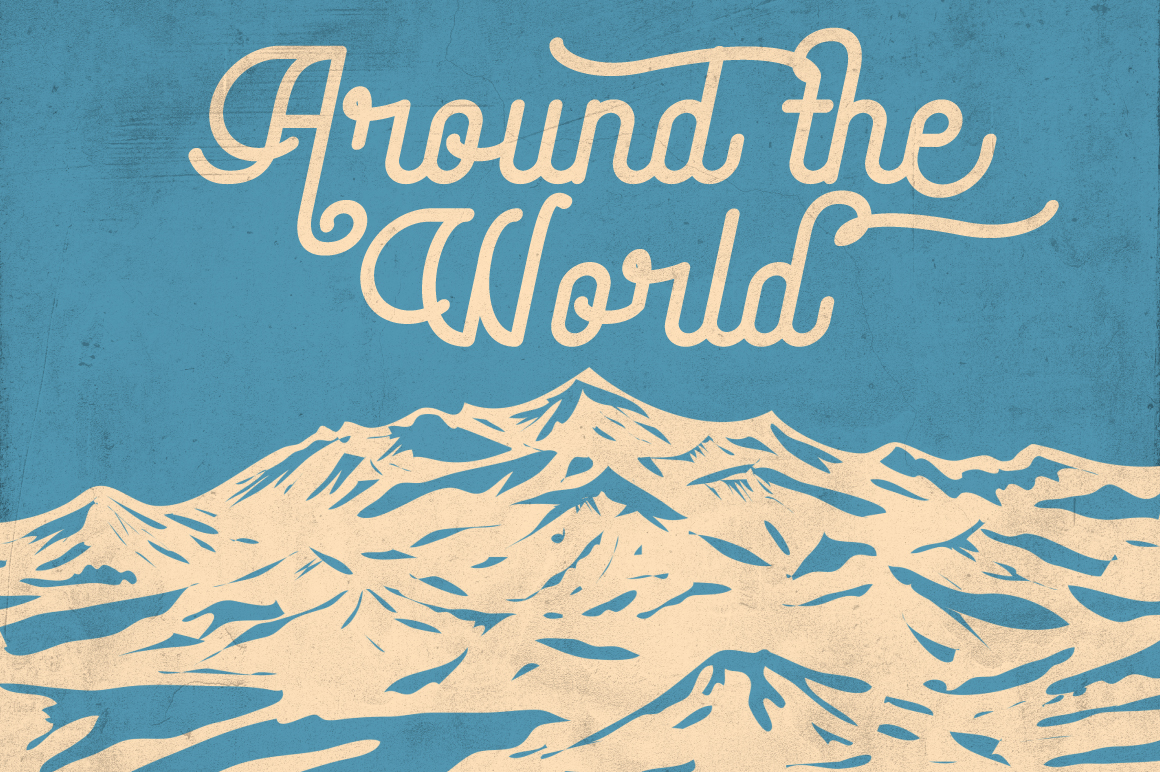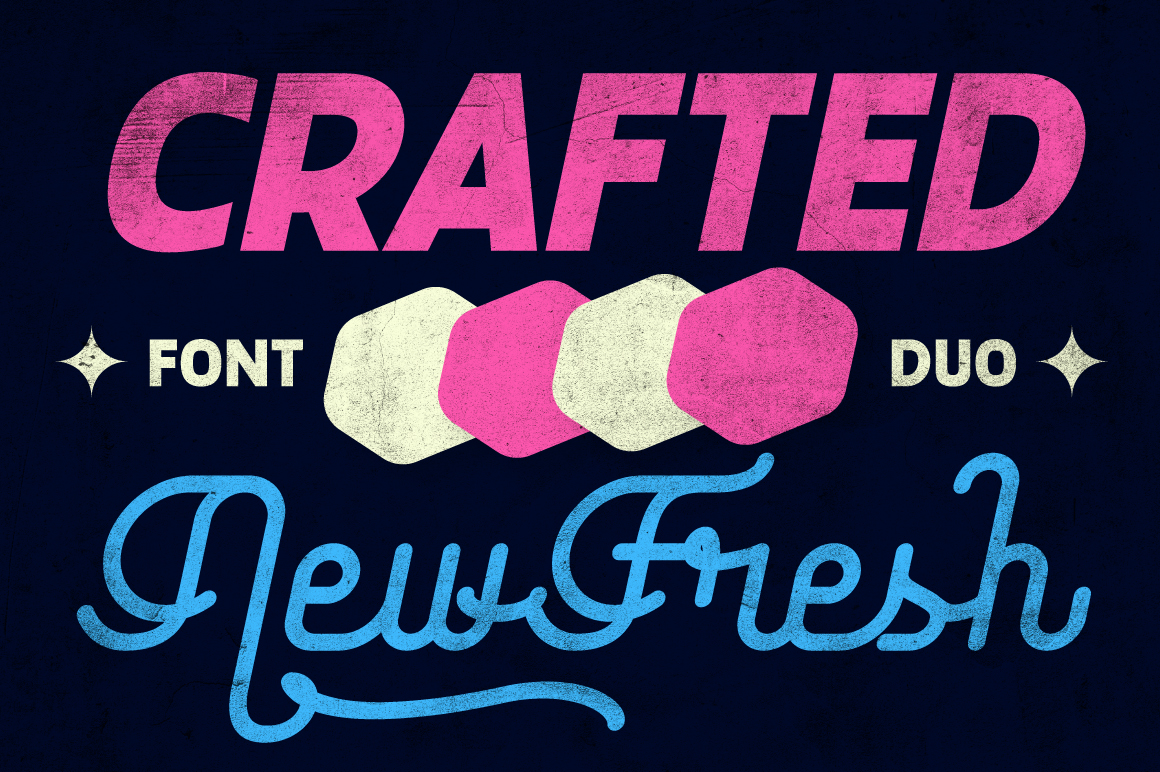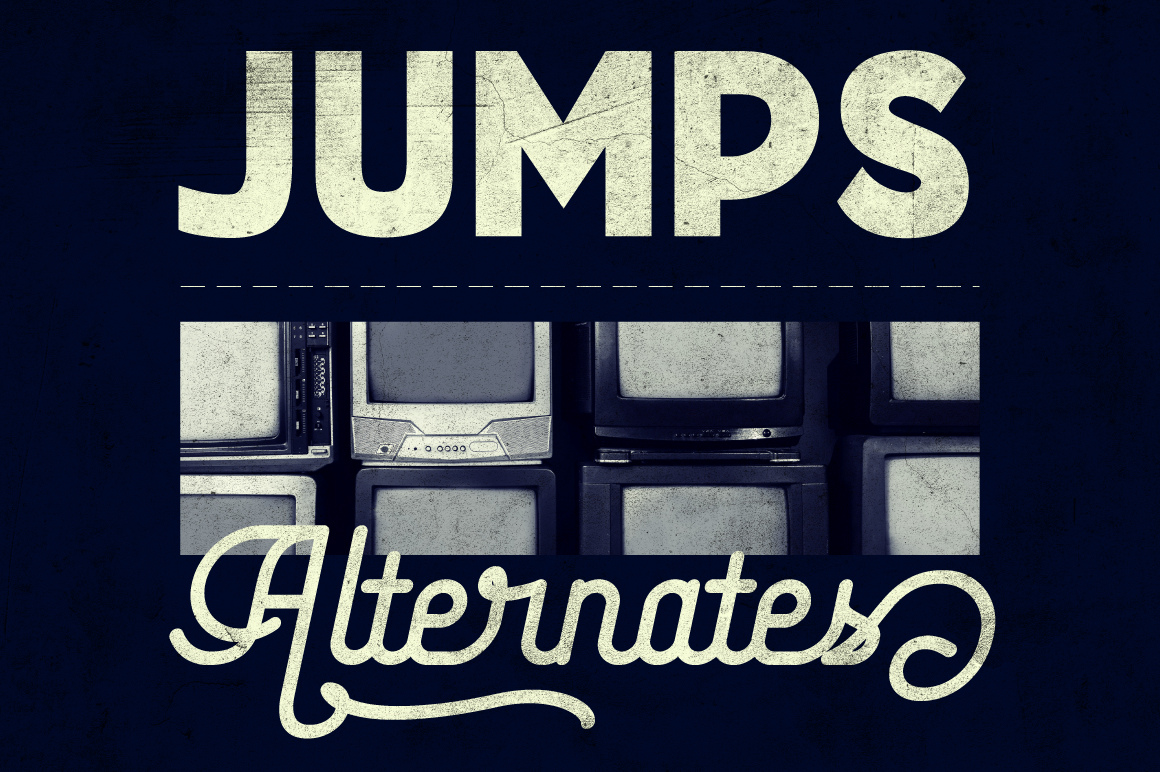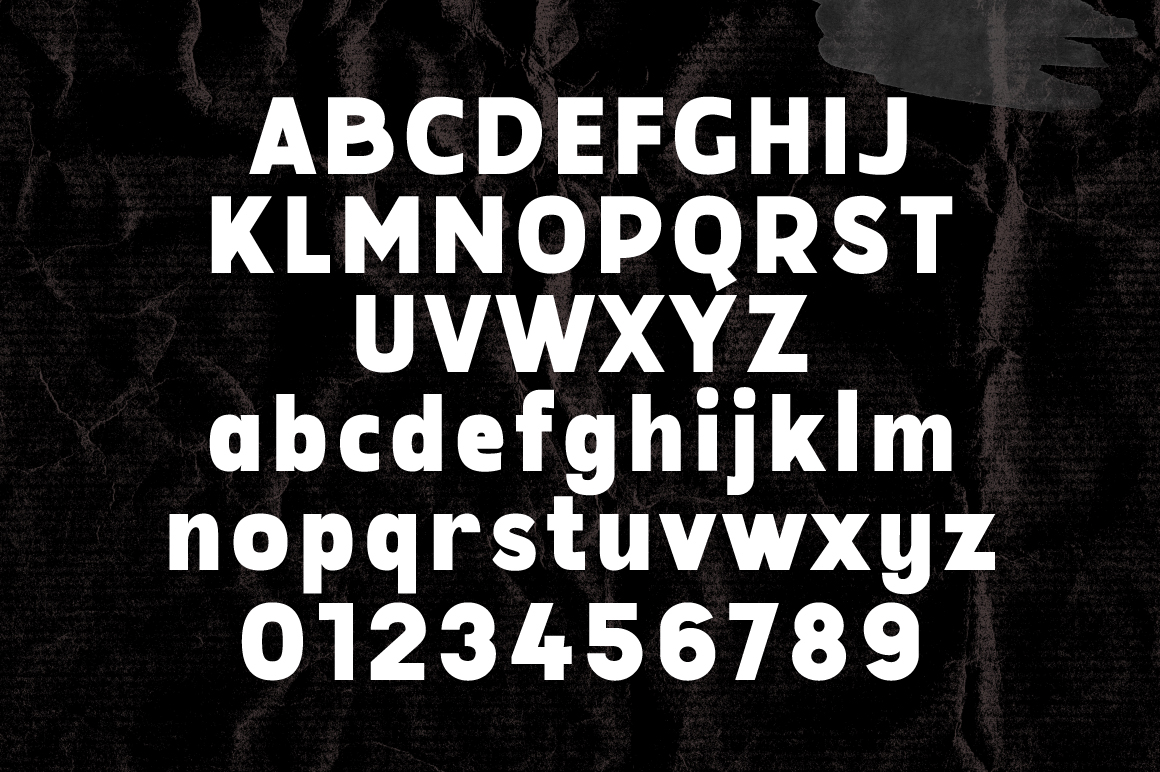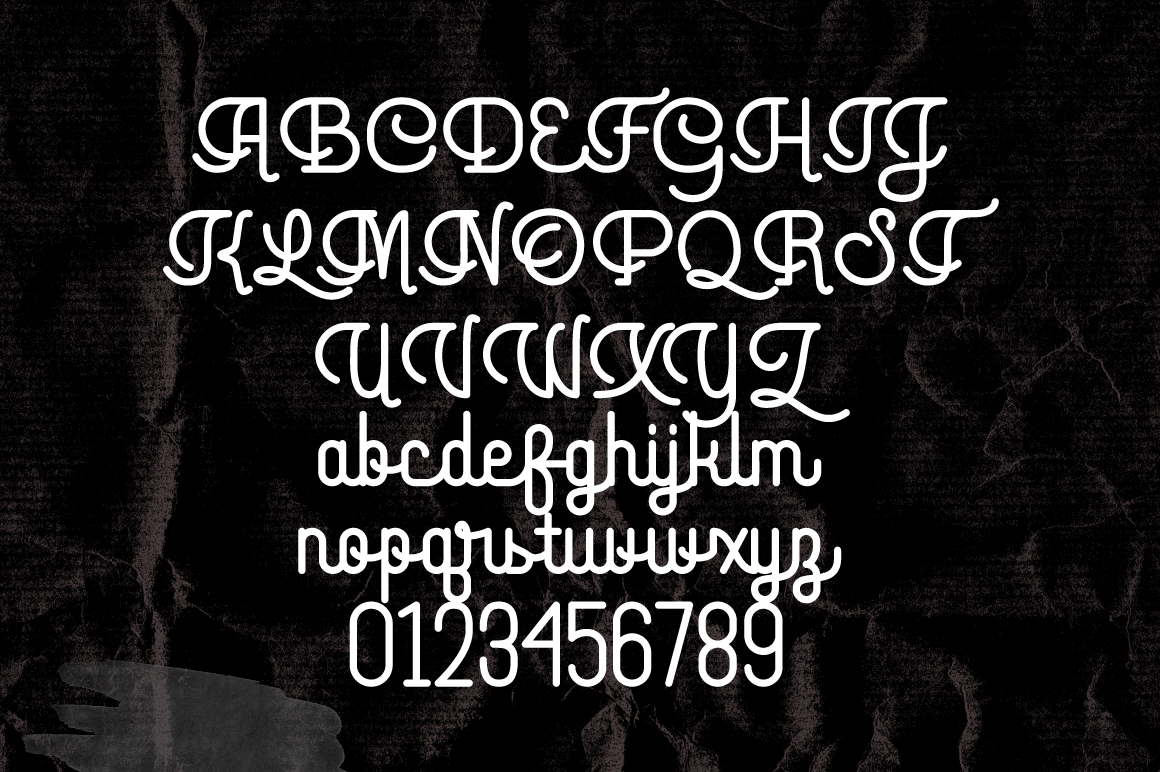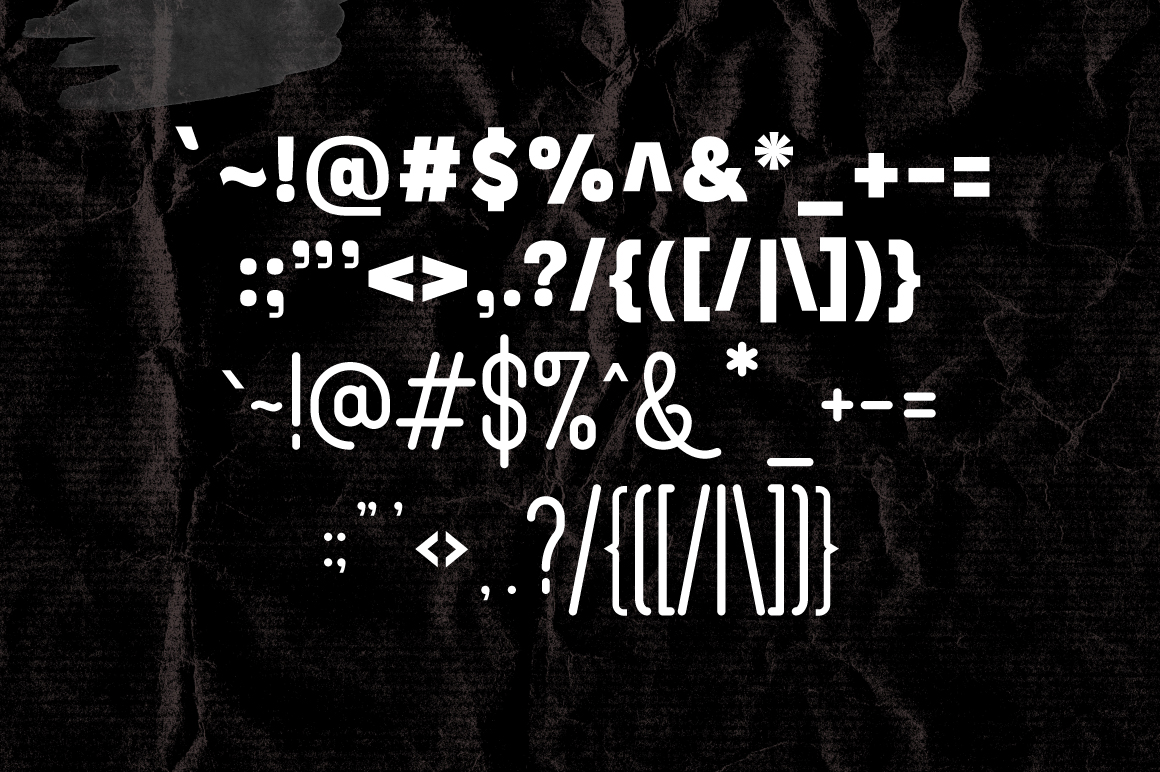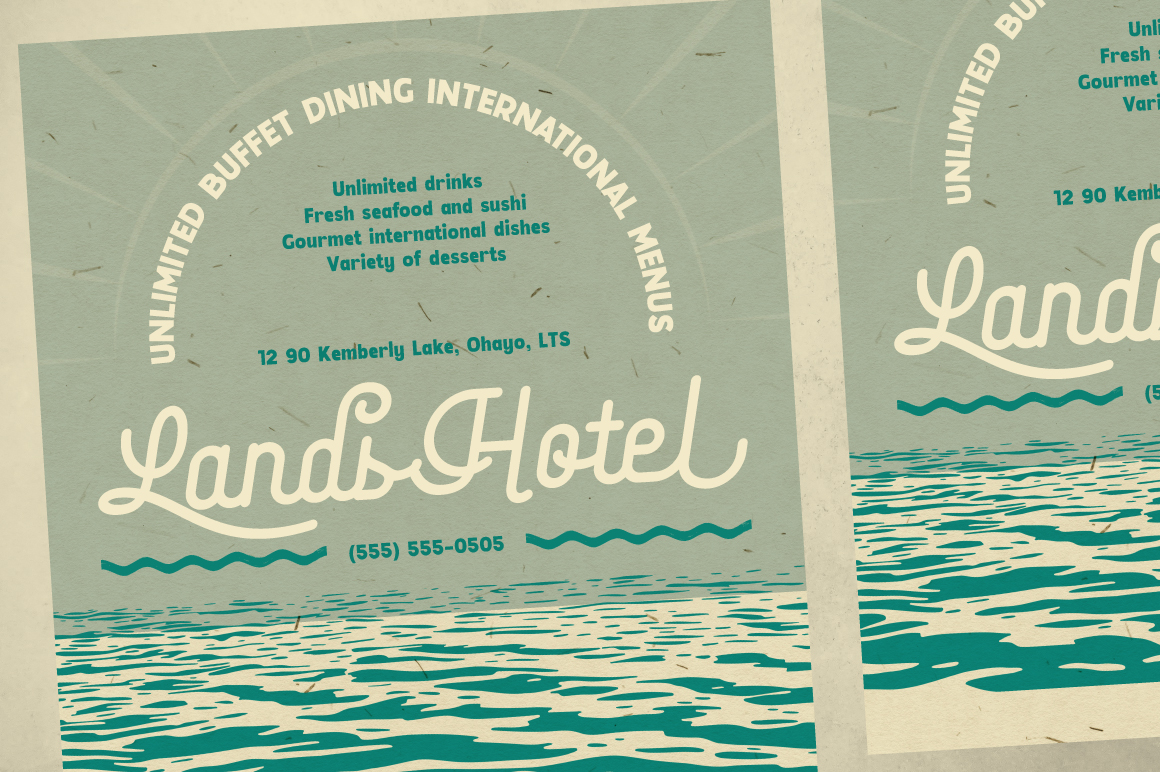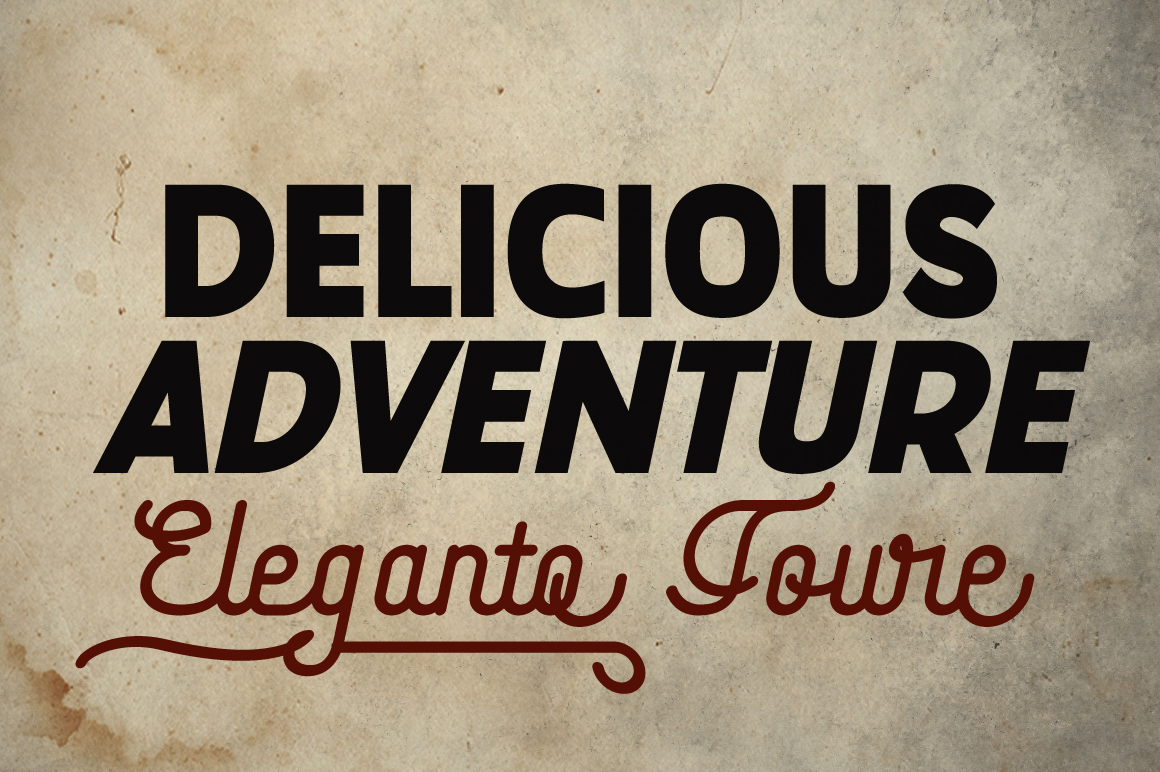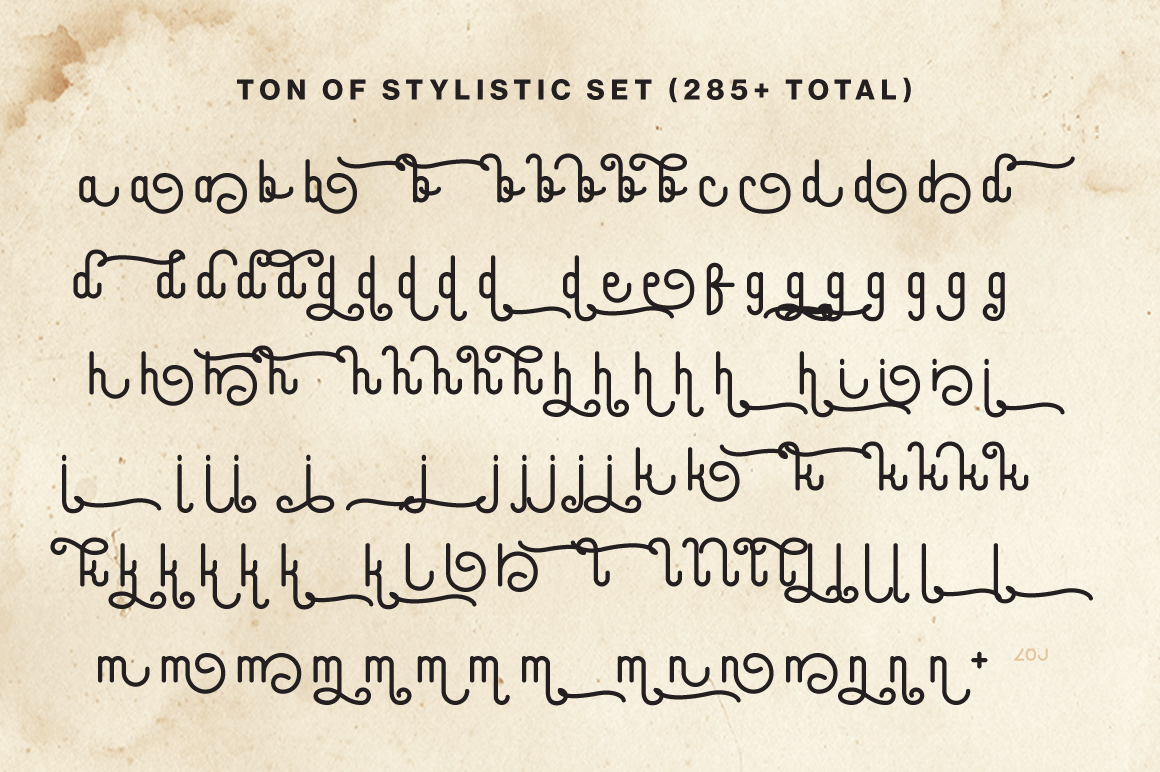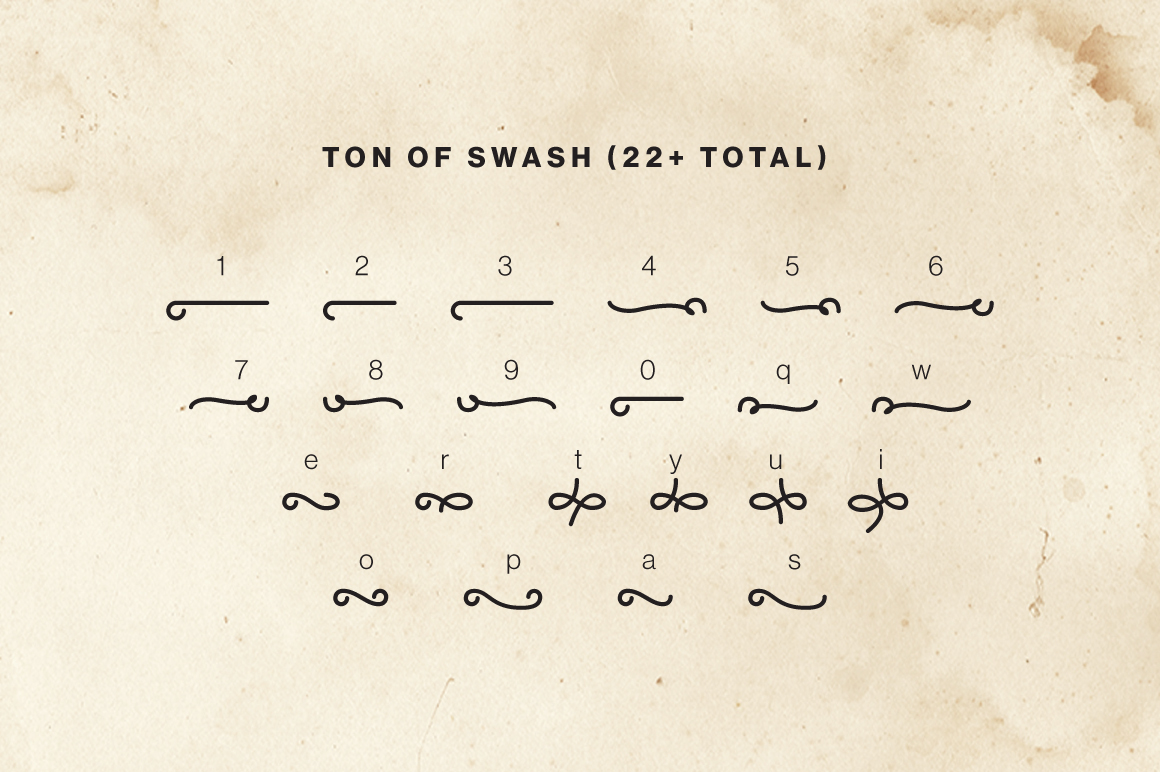
Travel Growth Sans - Regular
Travel Growth Sans - Italic
Travel Growth Script - Regular
Travel Growth Script - Italic
Travel Growth Vintage Font Duo is inspired by the typography of 20th-century travel posters featuring rounded script with a large x-height and elegant looks, sans serif hint Art Nouveau—crafted with complement each other in a pack. Designed for readability and versatility, enhances its contemporary appeal with a bold and strong personality.
Travel Growth Vintage Font Duo includes 2 weights each sans and serif, in regular and italic. OpenType features include tons of Stylistic Alternates (285 glyphs) & 22 (swash), and broad Latin language support.
This fonts duo is crafted to provide vintage, elegant, bold, strong, and versatile options for designers, marketers, and creatives. Whether you’re working on branding, web design, packaging, or editorial layouts, these top-performing fonts offer exceptional readability and aesthetic appeal. From bold and impactful to sleek and minimalist, discover fonts that elevate your creative projects and keep your designs on-trend.
Travel Growth Font Duo Features:
• 2 font styles, each font
• Upright & Oblique/Italic Styles
• 417+ glyphs (Sans) & 705+ glyphs (Script)
• 250+ languages support
• Multilingual support
• Vintage travel posters, postcards & adventure branding
• Logo design, packaging & product labels with a retro vibe
• Editorial layouts, book covers & lifestyle magazines
• Social media graphics, quotes & promotional campaigns
• Fashion, café & boutique visual identity projects
Travel Growth